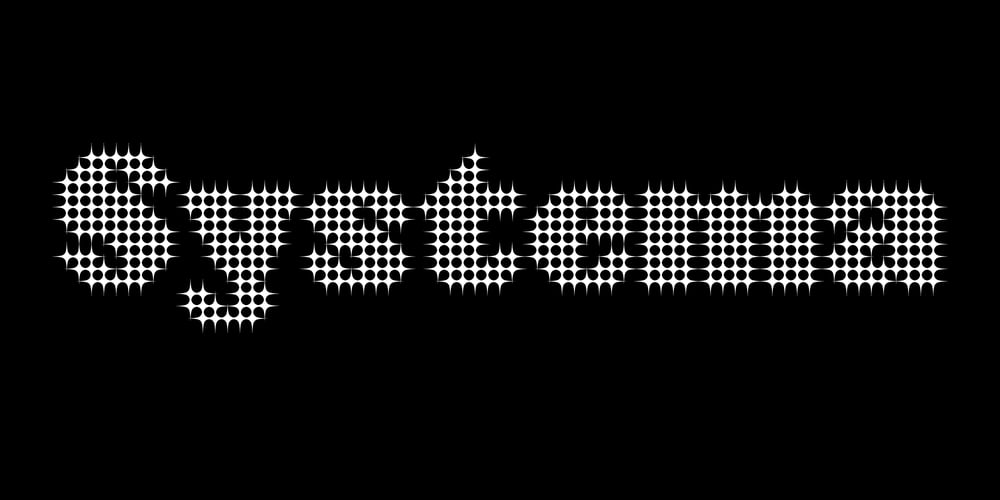
Systema Font Family was designed by Gaspar Muñoz and published by Gspr one. Systema contains 36 styles and family package options. “Systema” is an innovative typeface that combines modularity and pixelated style in a surprising way. Its letters continuously transform, taking on shapes ranging from soft circles to sharp squares, with occasional flashes that add a touch of vitality. This versatility makes it the perfect choice for design projects looking for a dynamic and unique aesthetic.